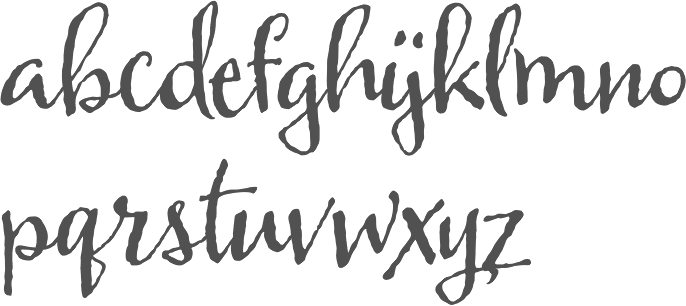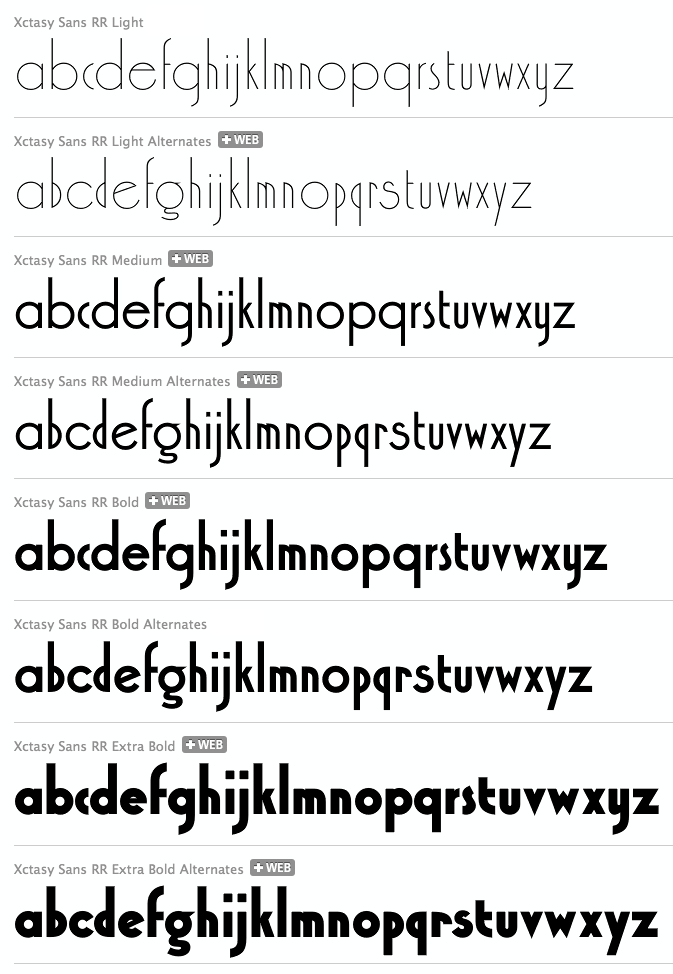
Signage typefaces | ||
24Design Studio
Typefaces from 2019: Madali, Lumiera, Mantra, American Label, Kida Main, Besty (font duo), Mellonia, Refaline Script, Eliotica, Chance, Lemonace (font duo), Reyonha Script, Mideltone, Prodush, Trushme Script, Wakeup, Sugarly, Rushely Script (retro signage script), Cromana, Arigatho (brush). Typefaces from 2020: Mideltone (textured), Maghnoyha (a monoline script), Wild Brush, Hotelio (a monoline sans), Roadkey Line (an inline all caps typeface), Sercerez (brush font), Collectials, Avekins, Cread, Gardenia, Glowria, Jenifa, Larrisan (a decorative serif), Light City, Millicious, Mindate, Mordova, Murner, Nobstars, Pittania, Rockside. Typefaces from 2021: Artmosfear, American Label (a Victorian label font), Asiatic (an inky script), Ballocs, Benhard (a vintage display font), Biorka Serif, Brith Brish, Chance (a squarish sans), Clowsh Esport, Catherina Script, Confillia (a clean sans), Focger Serif, Ganirus, Grimson (a signage script), Madtone, Monstario Serif (in the plump serif genre), Muve Serif (incised caps), Pancrack (a font for children), Redsans, Subaraya Retro Script. [Google] [MyFonts] [More] ⦿ |
38 Lineart Studio (or: Grayscale, or: Fontsources)
In 2018, he released the hexagonally-patterned color font Space, the nervous monoline display typeface Barcelona, the monoline script Brandy, the tattoo and metal band blackletter font Amstha, Twinkle (hexagonal texture), Premium Quality, Hightide (signage script), Ashley Pages, Bold Grunge (a wood style Western font), Rabbit House, Strongbold (brush style), Onthel (a rhythmic signage script), Cafeine, Seulanga (calligraphic), Sweet Bubble, Downhill, Architecture (technical writing font), Wisethink (rough brush), Emerald, Ghotic, Oakland (signage script), Parthenon (signage script), Strawberry Night (script), the formal calligraphic font Beauty Athena, the inline font Epicentrum, and the signature font Attitude in 2018. Typefaces from 2019: Ghoust (a marker font done at Cititype), Diamant Handwriting (a signature font), Utrecht (with Siti Saribanon Nurjannah), Exhibitionist (a fine rhythmic script), Holimount, Prague Metronome (a thin signature script), Allegroost (a brush typeface), Anisha (script), Kyoto Northern, ChiQuel (a Victorian display typeface that can be layered), Hillstone (a dry brush script), Malique, Ginchiest (a retro signage script), Kid Knowledge, Haghia, Khatija Calligraphy, Bernound, Graffity, Brandy Script (monoline), Downhill, Concept (sketched, blueprint font), Konya (signature script), Blacksmith, Curve Calibration (condensed sans). Typefaces from 2020: The Pallace (a great natural inky signature script by Muhammad Ridha Agusni and Siti Saribanon Nurjannah), Chipen (inline, all caps), Jakarta (a flowing inky script by Muhammad Ridha Agusni and Siti Saribanon Nurjannah), Rhode White (a great signature script by Muhammad Ridha Agusni and Siti Saribanon Nurjannah), Bailamore (a creamy signage script), Vogie (a sporty / techno sans family of 72 fonts, plus a variable font), Rollingtime (a brush script jointly designed by Muhammad Ridha Agusni and Siti Saribanon Nurjannah), Piedmont (a heavy connected handwriting script advertized as a masculine signature font), Whiplash (an all caps dry brush font), Aceh (a 36-style geometric sans), Youthink, Sacred Letter (a vintage weathered script), Serif Sketch (by Muhammad Ridha Agusni and Siti Saribanon Nurjannah), Corinthiago, Smart Chameleon (a handcrafted typewriter font by Muhammad Ridha Agusni and Siti Saribanon Nurjannah), Hiroshima Gyoshi (a brush font inspired by Japanese calligraphy), Roughmarker (dry marker font), Brotherhood, Blugie (a fat finger font), Rome Ionic (an all caps roman typeface), Black Orchestra (a great horror or black metal font), Black Orchestra (a horror font). Typefaces from 2021: Magreb (an 8-style renaissance serif typeface), Toxide (calligraphic; Celtic; uncial), Redtone (a 14-style geometric sans), Moula (an 18-style geometric sans for Latin, Greek and Cyrillic), Zouk (blackletter), Zagreb (an inky signature script by Muhammad Ridha Agusni and Siti Saribanon Nurjannah), Alsace (Victorian), Backbone (a black metal blackletter typeface), Roundkey (a 24-style condensed, but not round, sans), Wordwalker (a marker pen font by Muhammad Ridha Agusni and Siti Saribanon Nurjannah for Cititype), Sweet Bubble (a bubblicious font), Souljah (an elegant inky calligraphic script). Creative Fabrica link. Another Fontbundles link. [Google] [MyFonts] [More] ⦿ |
7N Types
Typefaces from 2013: Hurufo+Numero (sans family), Yaahowu (a rounded sans family), Gobold, Bryana Aningsih Shara (upright script), Gpkn (circle-based monoline sans). Typefaces from 2014: Smoolthan (monoline organic sans), Remponk (multilined), Playsir (comic book typeface), Defonarts, Tulisan Tangan 74, Fortheenas_01, Evogria (bold and mechanical), Anysome, Blackplotan, Dotcirful (dot matrix typeface), Handgley, Brokeren (techno sans), Headsome&Modif. Typefaces from 2015: Manophiser (sans), Theodista Decally (upright connected script), Upbolters (a macho sans caps typeface). Typefaces from 2016: Cutrims (a polygonal typeface), Xacose. Typefaces from 2017: Blessing in Disguise, Chirota (handcrafted), Hastoler, Merysha-Italic, Merysha (serif), SHAOutline, ShareHappinessAround (rounded sans), SomethingLooksNatural, Tentram-Italic, Tentram, Reitam (sans), Myfrida, Ribeat (smooth brush), Etchas, Goeslim, JulySeventh, Justtellmewhat, Offerings, Prohandy, Reprineato, Steagisler, Stea, Miss Nealy, Hastro, Dialoegue, Kisah Ceritra, Chesan, Boxise, Creword, Breetty, Anydore (calligraphic), Brushaff, Budiyaya (brush), Brotherina (connected script), Chosence (sans family), Handycheera, Aulyars (calligraphic script), Molleat. Typefaces from 2018: Freshness, Christed, Xyling, Youthing October Fourteen, Kayskew October Eleven, Hoty, Friday October Twelve, Codian October Nine (art deco), Caboge, Stripe October Seven, Nesdate October Ten, Codian October Eight, Odian October Nine, Stripe Shadow October Seven, Clambake October Six, Lovina October Five, Grande October Four, Grande October Three, The October Two, The October One, Favoner One, Homade McRacken, Besta Baru, Srows, Sanson, Bestar, Kathen, Byby, Charilla, CuteBeSpecial, FriendlySchoolmates-Italic, FriendlySchoolmates, GirlsMarks, HeartWarming, HeartWarmingExtra, Kaylonick, LearnShareColaborate-Bold, Mergic, MOGrhythm, OpenMinded, OpenMindedInside, PassiontoAction, PassiontoActionSlant, TeamWork-Italic, TeamWork, Yessy, Feltarigo, Motira, Adelio Darmanto, Troche, Nicolera, Mantul, Yukikato, Gebrina, Veni, Onadio, Aliena, Gabelisa, Still Loving, Shink, Sottee, Milyone, Kelidya, Yuliya, Hestina, Masbro, Goday, Milgun, Togetha, Thisay, Dhitha, Charline, Briany, Candire, Arinda, Anglena, Abilya, Story of Super Boys, Richela Kids, Seelyn, Pulen, Podo Moro, Sri Muliyo, Neigfriste, Hardino (monoline script), Purple River, Yoshephin, Theola Kids, All Season, All Season Ornaments, Hello Teman, Attracted Monday, Cirquesa, Hopeitissed (signage script), Hettas, Certhas, Fattana, Qeiza, Having Fun, Flotta, Soe, Misses, Siry, Mommy's Kitchen, Thany, Mother's Touches, Create Something Today, Well Bred, Cheria, Beatific Margella, Hidea, Gobold Blocky, Riztteen, Stika, Bintar, Ginta, Menscho, Hilona, Dehasta Momentos, Mungkin, Shartoll Light, Robaga Rounded, Ingat, Ascota, Klapjo. Typefaces from 2019: Homazing, Pre (script), Millythea, Rough Rough, The Friday Stroke (brush script), Anu, Dearly Loved One, Khalifa, Vesetia, Blending Attraction, Lova Valove, Quotable, The Simple One, Matchinger, Touch Over Next, Waiting For, Being Love, Lova Valove Serif, Clawster, Hopia, Sanson, Being Love Sans, Back To Ancient Time, Protector, Mystag, Oreta, Dearly Loved Slab One, Yep, Nuaz (a stitching font), Bronice, Nesdate October Ten. Typefaces from 2020: Sheroo (beatnik style), Thank You So Much, Styla, Racy Mango, Josy Wine (spurred), Lonely Melody, Alegra, Alenor, Conformable, Sweet Hansan, River Script, Kevin Aprilio, Jorby, Maines, Say Yes, Fish Grill, Flash on Saturday Night, Literally Natural, Lady Nature, Joyful Story, Brush Hours, Daily Walker, Free Monday, Mila Bright, Marchone, Githo Love, Fondacy, Jumat, Brastagi, Christiany, Feltarigo, Gabelisa, Gibran, Baligle, Do It With Love (a Valentine's Day font), Vecoly, Delightious, Ataro, Anticed, Cherrythea, Merrycle, Twolank, Atozimple (a monoline sans), Bikito (a curly script), Tyfanie, Hilya, Lonnie. Dafont link. Web site. Creative Market link. Creative Fabrica link. Another Creative Fabrica link. And another Creative Fabrica link. [Google] [More] ⦿ |
A Is For (was: Aisforapple)
In 2007, she started work under the guidance of Alejandro Lo Celso and Philippe Millot on a revival of the first type printed in France, at the Sorbonne, by Ulrich Gering. This work is based on a 1478 edition of Virgilius. Grotesque 6 (2009) is based on a typeface published in 1880 by Stephenson Blake. In 2010, she founded Aisforapple, where she published Jaakko (signage), Coline Cursive, Coline Première, Coline Extrême, Grotesque 6, David (2014) and BTP (polygonally-outlined typeface). In 2016, the type foundry published Knif Mono Regular, which was designed by Axel Pelletanche-Thévenart under the art direction of Guillaume Grall and Benoit Santiard. It was produced by Emilie Rigaud. In 2017, Émilie Rigaud published the sharp-edged typeface Tongari, which was modeled after samurai blades. Tongari Display followed in 2020. In 2018, she designed Naoko, a 7-style wide sans with short descenders, named after astronaut Naoko Yamazaki. Typefaces from 2020: Pachinko (six rounded almost typewriter styles including many monospaced fonts and italics), Olympe Mono (a monospaced and monolinear typeface revived from an old typewriter). Speaker at ATypI 2017 in Montreal. Old URL: Mouton Sauvage. Klingspor link. Personal site. [Google] [More] ⦿ |
A2 Type
At ATypI 2013 in Amsterdam, he spoke about New Transport. Winner of the type design prize at the Tokyo Type Directors Club TDC 2019, with Matt Willey, for the New York Times Magazine Olympic font. [Google] [MyFonts] [More] ⦿ |
Abbasy Studio
Abduhan Fikhri
Lebanese designer who created Beantown (2004, an athletic lettering font), Staubach (2004, an athletic lettering typeface based on the lettering of the Dallas Cowboys), Wagner Modern (2011), Kroftsmann (2004, on octagonal face), Kavelry (2004, based on the Kemper Insurance logo), 4th and inches (2008, rounded octagonal; based on the proprietary font used by Russell Athletic, makers of sports apparel as used by Georgia Tech BKB, Washington State, Alabama State, Tennessee State, Mississippi Valley State, and many others in college football), and PopWarner (2004, a Bank Gothic lookalike), Wagner Zip Change (grotesque), Richardson Fancy Block. Creator of some free soccer team lettering alphabets in 2010: Louisville, Puff Script, Red Raiders, Richardson Fancy Block, Wagner Zip-Change (based on grotesque signage letters), ACMilan2009, ASRoma, ChampionsLeague, England2007, MLSUniform, RealMadrid2009. About his GeauxXPDF typeface (2010), he writes: I had extracted a nearly complete set on this one a few years back, except for J and Z which I created on my own. As best I can tell, it only exists as an upper case font without most punctuation, so I created that too to make it more useable. I don't know how much LSU [Louisiana State University] paid for this design, but to me it always looked like something that Larabie or Iconian would have given away. He also extracted HDRadioAlphabet from a rounded Arial typeface he found on HD radio. His UScoreRGK (2012) is a blocky angular font used on-screen by Fox Sports. LCD Display (2012) is a 28-segment LED font. UA Terrafont (2012) was based upon the vector art in this PDF file. In 2013, he published the athletic lettering family High School USA and the octagonal typeface UA Cadet. See also here. Dafont link. Fontspace link. Another URL. [Google] [More] ⦿ | |
Abdul Malik Wisnu
Abdul Manan
Absonstype (was: Haksen Graphic, or: Haksen Letters, or: Haksen Studio)
| Edhi Sarwo or Sarwo Edhi Prayitno or Edhi Prayitno. Magelang, Indonesia-based designer, b. 1982, who set up Haksen in 2017 and Absonstype in 2021. He designed Ballete (2018), Metteora (an irregular script) (2018), Philbrook (2018: a tall sans), Romantic (2018: a connected monoline script), Anonim (2018), Rumetes (2018), Polythem (an upright script) (2018), Brooklyn (2018, a dry brush font), Amellia (2018: a swashy script), The Immortal (2018), Arpeggio (2018), Saint Petersburg2 (2018), British Columbia Serif (2018), Balutteli (2018), Balutteli Serif (2018), Belleson (2018), Hello Pretty (2018), The King (2018), Angry+Hungry, (2018), Busset City (2018: a monolinear rabbit ear script), Muttung (2018: a rustic script), Saint Petersburg (2018), Niken (2018: script), The Chocolate (2018), Delicious (2018), Adellina (2018), Antique Balutteli (2018: Serif and Script), Sweet Girls (2018: curly script), Katty Pretty (2018), The Wormies (2018), Mellisa (2018), Stylistic Sign (2018), Bestalia (2018), Lincoln (2018), the upright script Paulo Pacito (2018) and the italic script Willona (2018). Typefaces from 2019: Please (roman caps), Hamburg (a rabbit ear calligraphic script), Angellyne (script), Big Bang (script), Ballado (an extended sans), Bello (a calligraphic script), Roberts (a bold brush signage script), Babyhome, Hellena, Mottion, Albero (an all caps vintage sans), Alberobello, Cnossus, High Dreaming, Blame (all caps; sans and serif), Great Authorized (a vernacular script), Ambyar, Sikatch, Berash, Romeo Fans (a dry brush script), Right Female, Attention (font duo), Babylon, Soulmate (calligraphic), World Pressure, Senada, Rothena, Masha, Blade, The Brandy, Arkana, Southeast (a dry brush typeface), Angela Aiglory (a rabbit ear script), Beauty, Love Heart (a Valentine's day font), Anyone, Stones, Dragon, Karyland, Radiga, Rumero, Mylord, Pinnocio, Black Cat, Melburn, Bumblebee, Black Forest (font duo), Saturday, Biscuit, Amuba, Angela, Amy, Washington, Hasella, Grusel (dry brush). Typefaces from 2020: Lamborte (techno), Tobelord (a flared all caps display sans), Challenge (inky script), Elmore, Twice Spoiler (a dry brush script), Effingham (wild script), Billystory, Mangosteen, Morning Girls, Millenial Script, Tittowest (described as a futuristic serif), Millestones (brush), Monsterio (futuristic, slab serif), Oldbrothers, Thunderboss (an octagonal sports font), Father's Entreaty, Bunny Story, Coding Sign, Botanical Flourish, Soulwave, Hello Crafter, Pretty Night, Megatura (a decorative serif), Into Paradise, Netherland Cracker, Mango Salsa, Beauty Mermaid, Secret Admire, Standing Classy, Athena, Retanglez, Heartbright (a script), Bunny Story, Withyou, Alligattory, Anandya, Coding Sign, Jasmine Sheffield (a wild script), Millenial Script, Morning Girls, Secret Admire, Netherland Cracker, Mango Salsa, Eiffel Shine, Sweety, Big Stomach, Piano Teacher, Romantic Chicago, Donkey Casting, Falling Love, California Dolphin, Meritoriously (a scrapbook font), Honey Moon, Really Distinct, Sandblast, Ferments (a scrapbook script), Lovely Unicorn, Austria Memories, Birama (a dry brush script), High Billion, Believe (a clean wide sans), Consistance (an inky signature script), Matrixoid (in the Saul Bass style), Paris Helen (a romantic script), Mostly Bonny (script), Westony (a wild inky script), The Fresh of Onion (a fat finger font). Typefaces from 2021 at Haksen: Really Distinct (script), Sandblast (a brush script), Big Stomach (a scrapbook font), California Dolphin (a scrapbook script), Falling Love (a scrapbook script), Piano Teacher (script), Donkey Casting (a scrapbook font), Nostrud, Austria Memories (script), High Billion (a font duo), Honeymoon (a dry brush script), Romantic Chicago (a brush script), Elmore (script), Mostly Bonny (script), Alberobello Serif (a display serif), Big Bang (script), Antagonist (bold and flared), Megatura (a decorative serif), Thunderboss (techno), Santa Fe Spring (script), Funboldies, Hastag (a rabbit ear script), Mattiass (a dry brush script), Mottion, Beby Asia (a wild script), Angellyne, Babyhome, Feeling, Senada, Hellena, Rothena. Typefaces from 2021 at Absontype: Greatelo (a free techno font), Beillonei (a display typeface), Rottering (a thin fashion mag serif), Andromeda, Restore, Barcelona (a monolinear display sans), Alteron (a bold display sans), Rescueto (spurred), Avemon (a display serif), Kagestone (a display serif), Rectoba (a squarish display typeface), Teritone (a squarish typeface), Demora (a 6-style squarish sans). Typefaces from 2022: Efiles (a display typeface given the psychedelic treatment), Netherland Cracker (a bold upright scrapbook script). Creative Fabrica link. [Google] [MyFonts] [More] ⦿ |
Adam Fathony
Designers of Gasline (2016, grainy stencil), Watshot (2016, signage font), Weyouth Script (2016). [Google] [More] ⦿ | |
Addy Sukma Bharata
Adhi Nugraha Sapto Aji
Adhitya Nugroho
Adianto Nuri Fahrezy
Adil Budianto
Adinuritype
| Indonesian designer (b. 1998) of the script typefaces Symphony (2019) and Kalulla (2019: bold retro signage). [Google] [More] ⦿ |
Aditya Nugraha Putra
Aditya Rezki Apriyadi
Frutiger's books include Type Sign Symbol and Signs and Symbols. Their Design and Meaning (1989, with Andrew Bluhm, published by Studio Editions, London; Amazon link). Linotype link. FontShop link. Adrian Frutiger, sa carrière française (2008) is Adèle Houssin's graduation thesis at Estienne. Klingspor link. Wikipedia link. View Adrian Frutiger's typefaces. View some digital versions of Avenir. Vimeo movie on Frutiger by Christine Kopp and Christoph Frutiger entitled "Der Mann von Schwarz und weiss: Adrian Frutiger". More Vimeo movies. [Google] [MyFonts] [More] ⦿ | |
Fonts made in 2010: The ETH family (art deco sans). Custom typefaces by Midzic: Aquitaine (2013, for Région Aquitaine), Nilka (2013, for his personal identity), No End (2013, a fat didone), Ethon Serif (2013, a perked up serif typeface for Penguin Books), Kasai Est (2011, for the Congo-based Kasai Est Magazine), Festival De Film Documentaire (2011), Nevenka (2011, condensed sans). In 2014, Adrien Midzic, Jason Vandenberg, Jérémie Hornus, Julien Priez and Alisa Nowak co-designed the creamy script Vanilla FY. It was renamed Vanille FY after a few days. Still in 2014, Adrien Midzic, Jérémie Hornus and Alisa Nowak co-designed the very humanist sans family Saya FY and Saya Semisans FY. Adrien Midzic and Joana Correia co-designed Saya Serif FY (2015). At the free font cooperative Velvetyne, he published the sans typeface Lack (2014). In 2015, he made the 3-style sans typeface Suber for an art fair in Paris. The roman transitional typeface Bota Serif (2015), which was inspired by Cochin (designed by Charles Peignot in 1912) is a custom font designed for Hotel des ventes de Poitiers. In 2017, it was finally released for retail. In 2016, Adrien designed the bold titling typeface Debeo and the modern condensed Latin/Arabic typeface 29LT Adir (with Naji El Mir; at 29 Letters). In 2017, he published the piano key typeface Mixal, which became a large experiment on variable fonts and is free for everyone. Typefaces from 2018: Kern, Kern Office (a sans with some Futura features), Forno (sans), VTF Lack (a free single weight monoline geometric sans for Latin, Greek and Cyrillic, published by Velvetyne), Metal (an all caps multi-width variable font originally designed for marché Dauphine), Orelo (a 120-style high-contrast fashion mag font family; +Orelo Hangul, 2020). Typefaces from 2019: Ultra Solar (experimental), 1871 Mane (a custom sans typeface), Wasa (a tense sans in seven styles), Shrill, Gangster Grotesk (free), Stupid (a hacker / hipster font), Kern (geometric sans). Typefaces from 2020: Shreck Issue (very tall and ultra-condensed), Metal (brutalist), Version ACT (a two-axis variable font), Debeo (a heavy sans), Dozza (a hybrid family named after ITC Mendoza by Jose Mendoza Almeida), XMX (experimental). Typefaces from 2021: Campingo (a roundish informal typeface inspired by camping and outdoor life), Bota (with Ines Davodeau: first designed for Boissnot&Tailliez, Bota is a modern interpretation of Georges Peignot's Cochin (2012)), Pleasure (hipsterism pushed to the fringe of addiction), Model Standard (ModelStandard Mono, ModelStandard SemiMono, ModelStandard Sans). Dafont link. Klingspor link. Behance link. Another Behance link. Hellofont link. Velvetyne link. [Google] [MyFonts] [More] ⦿ | |
Almanac Design
| New York City-based designer of Radio Corp (2015, an art deco family designed as a tributed to the 1920s New York City architect Ralph Thomas Walker), Circle Deco (2015), Insomnia Deco (2015) and the sketched art deco typeface Jingle Display (2015). Typefaces from 2016: Logic (a puzzle display font), Marine Terminal (based on maritime signage). Creative Market link. Almanac Design link. Behance link. [Google] [More] ⦿ |
Almarkha Type